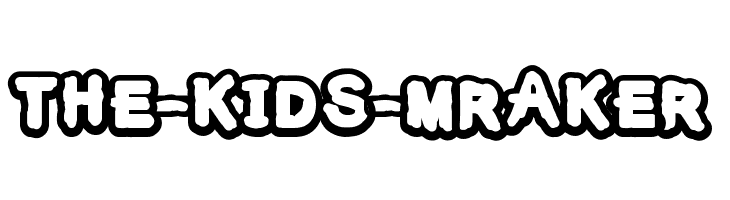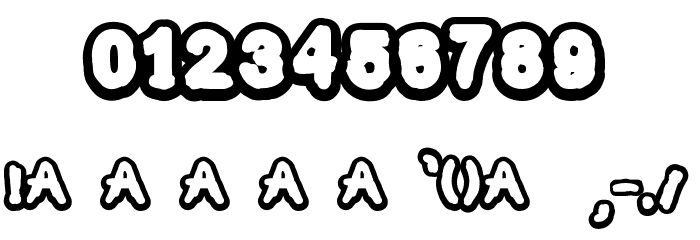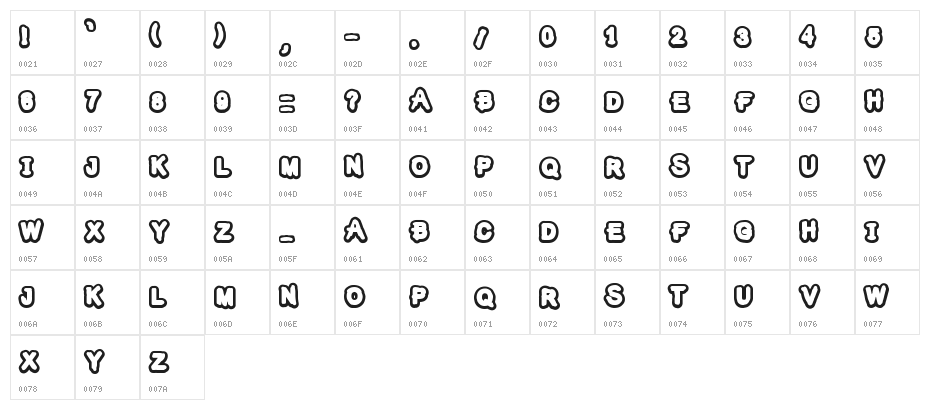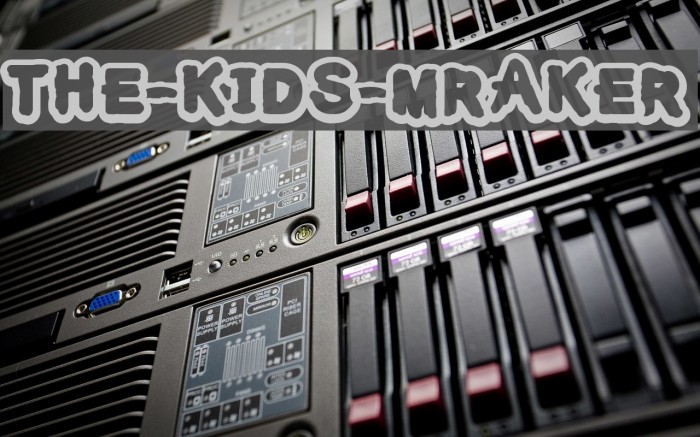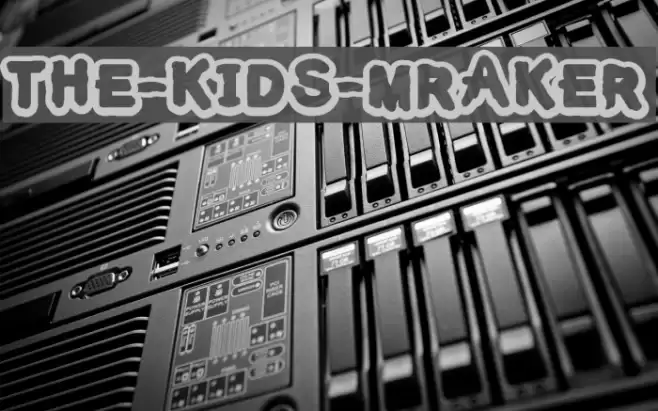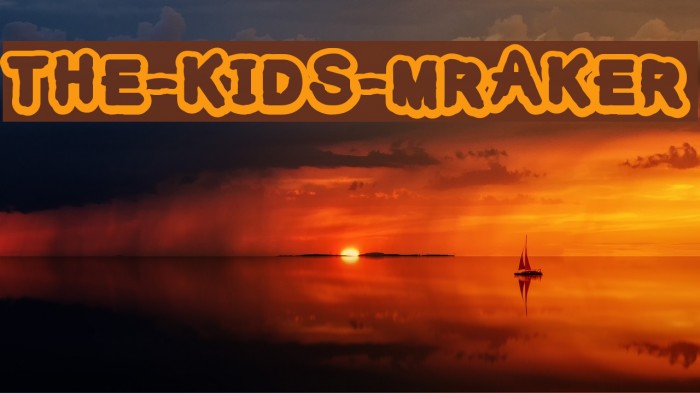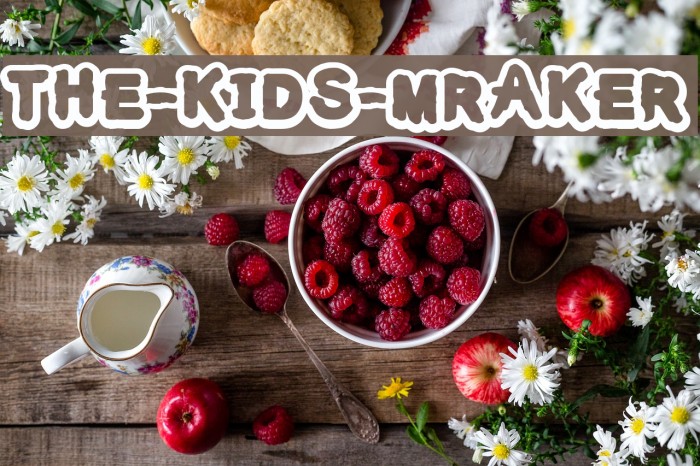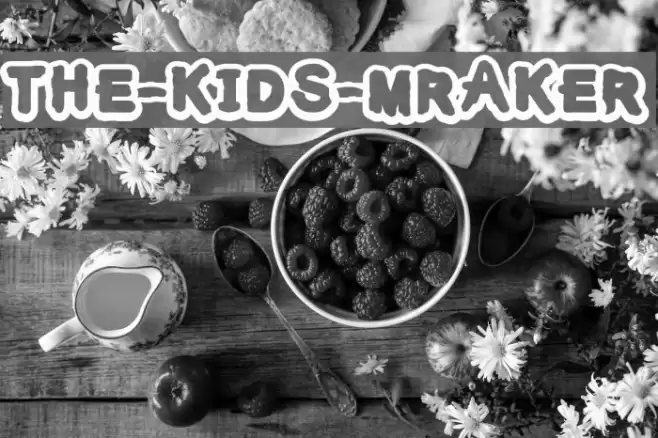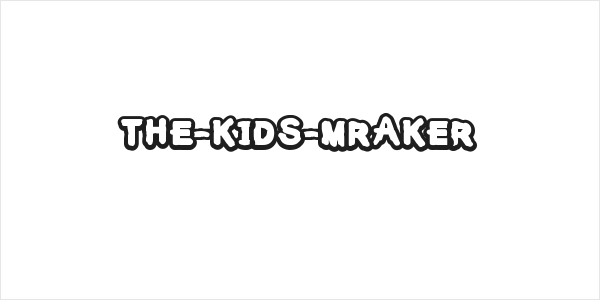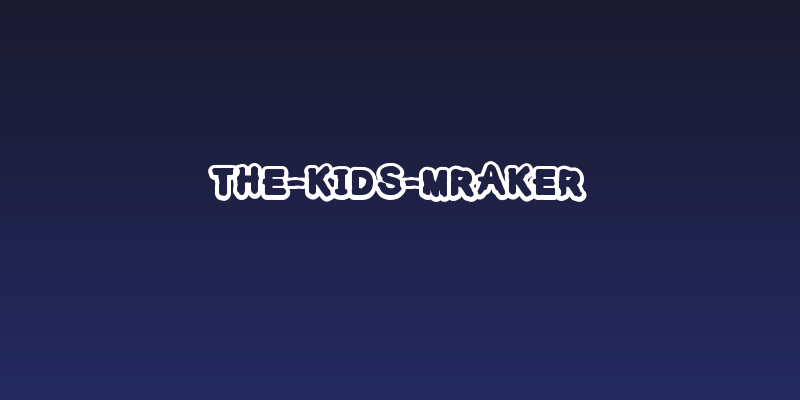
The-Kids-Mraker Font
The-Kids-Mraker Description
This playful and bold font features thick, rounded characters with a bubbly, cartoonish style. Each letter is outlined, giving it a distinctive, eye-catching appearance. The font maintains a consistent weight throughout, with a slightly exaggerated, whimsical flair that makes it ideal for children's projects or fun, informal designs. The numbers and special characters follow the same playful aesthetic, ensuring a cohesive look across all text elements. The character spacing is normal, allowing for easy readability while maintaining its unique style.
| Overall Style | Playful, Cartoonish |
| Proposed Projects | Ideal for children's books, playful posters, birthday invitations, and educational materials. |